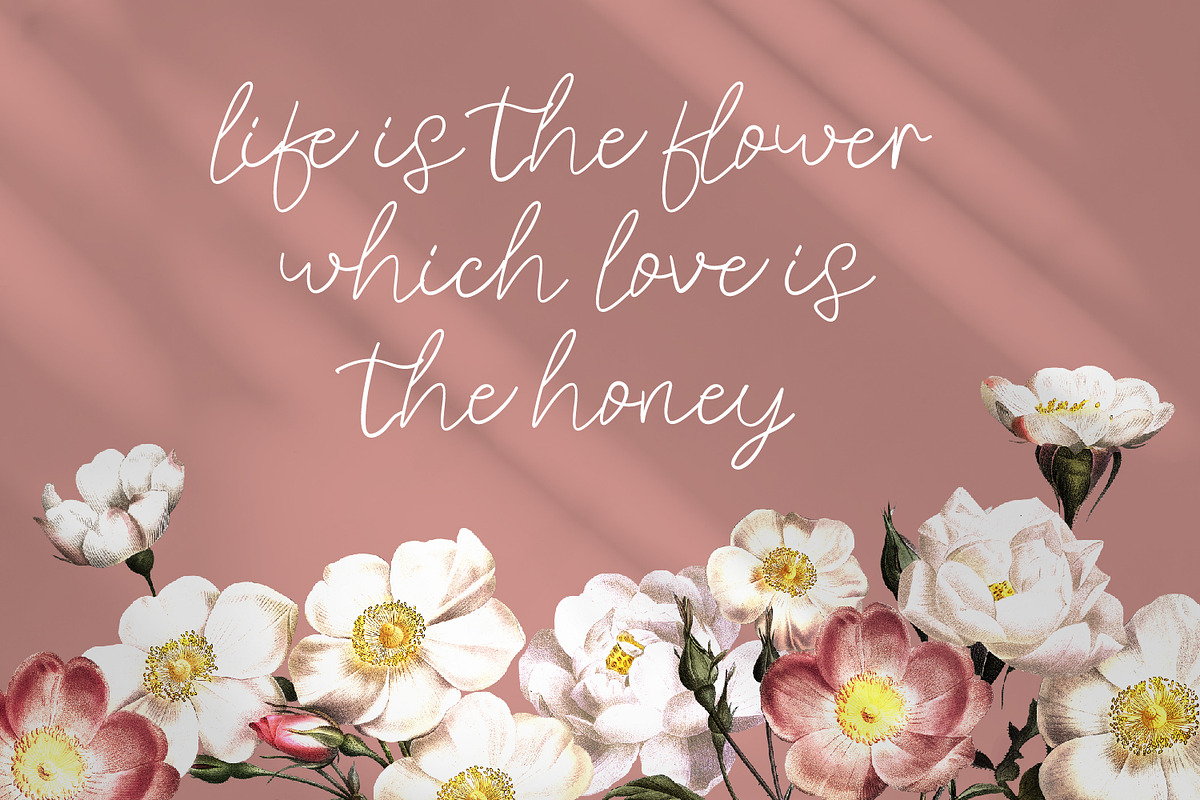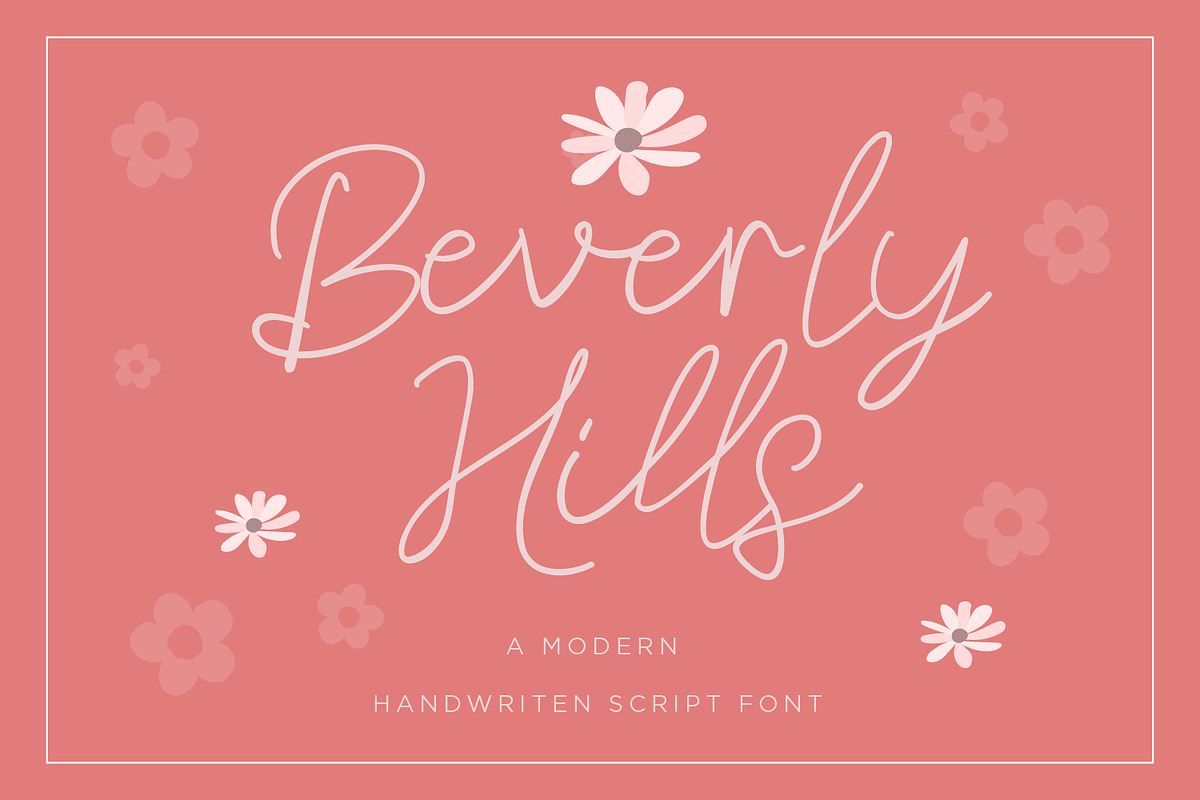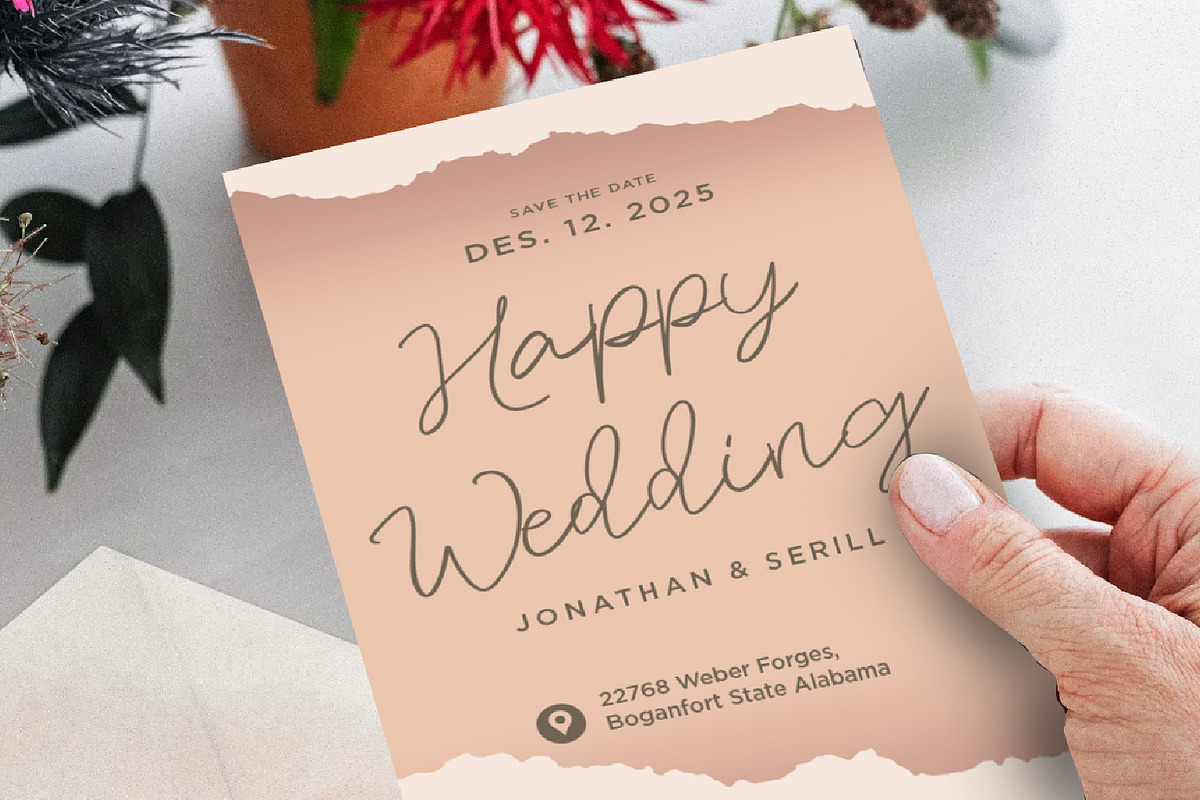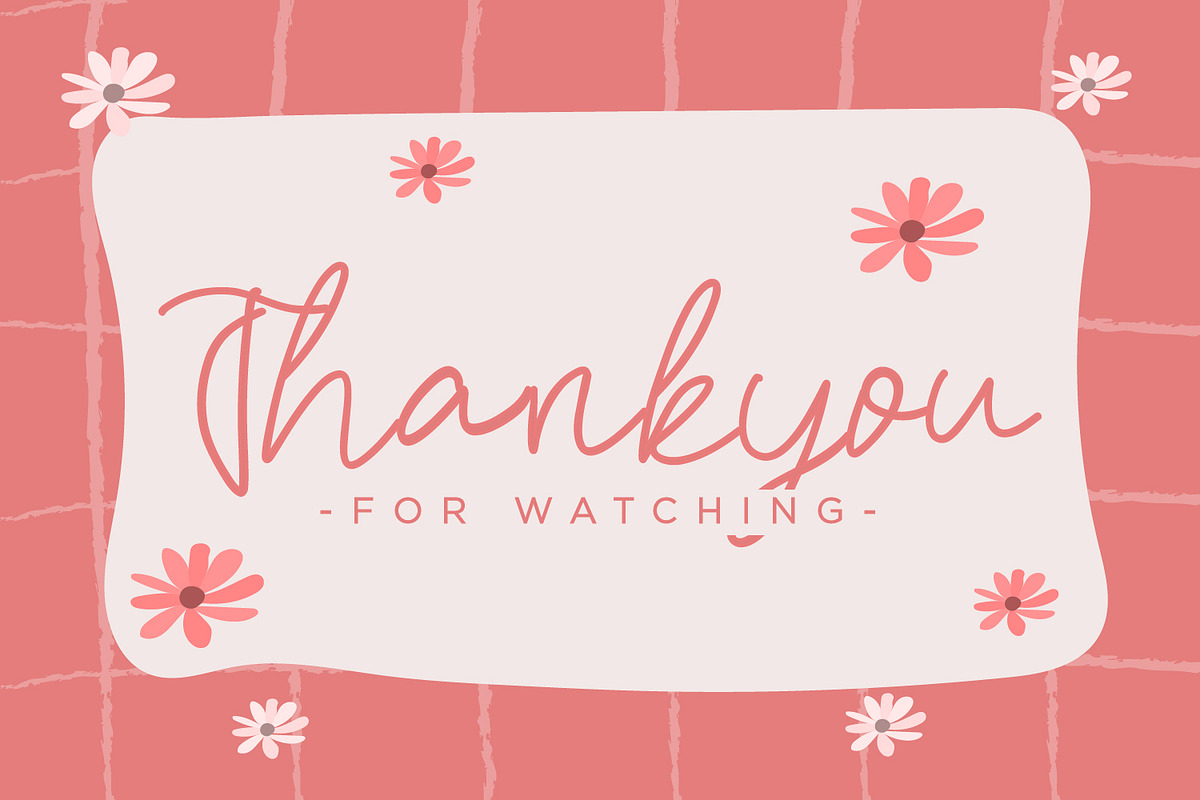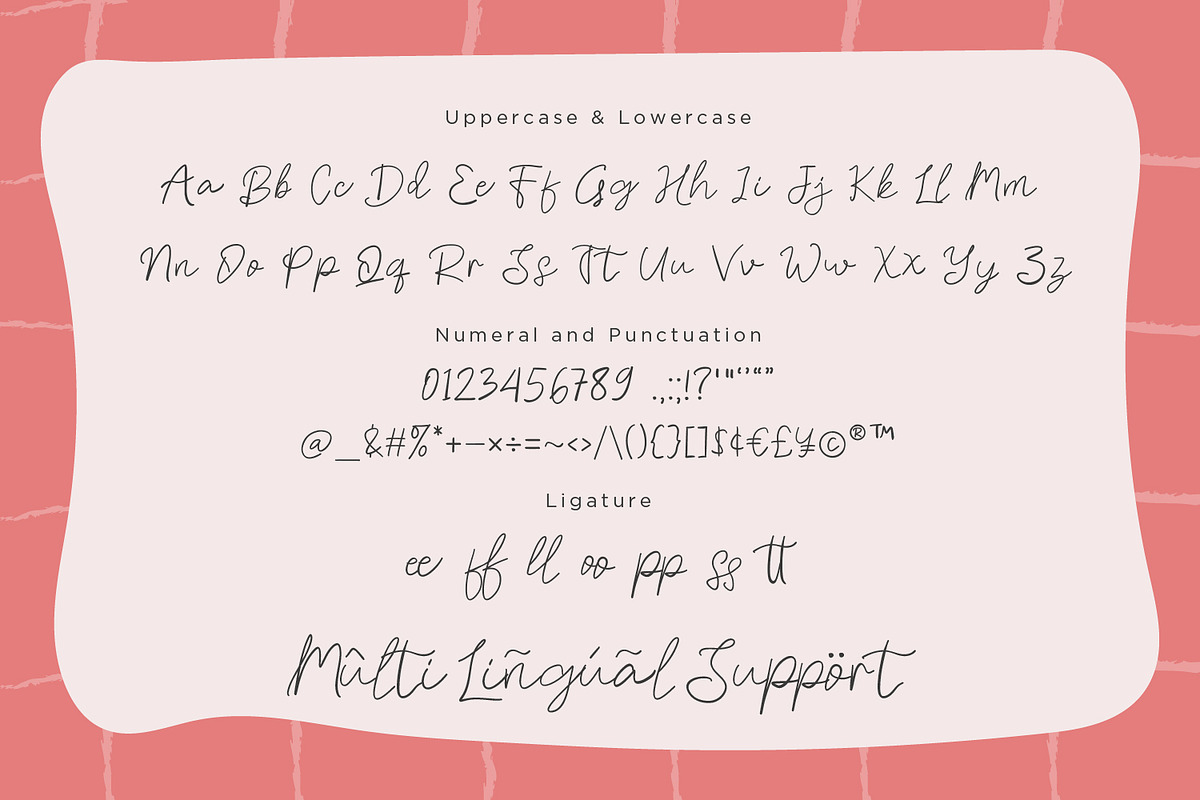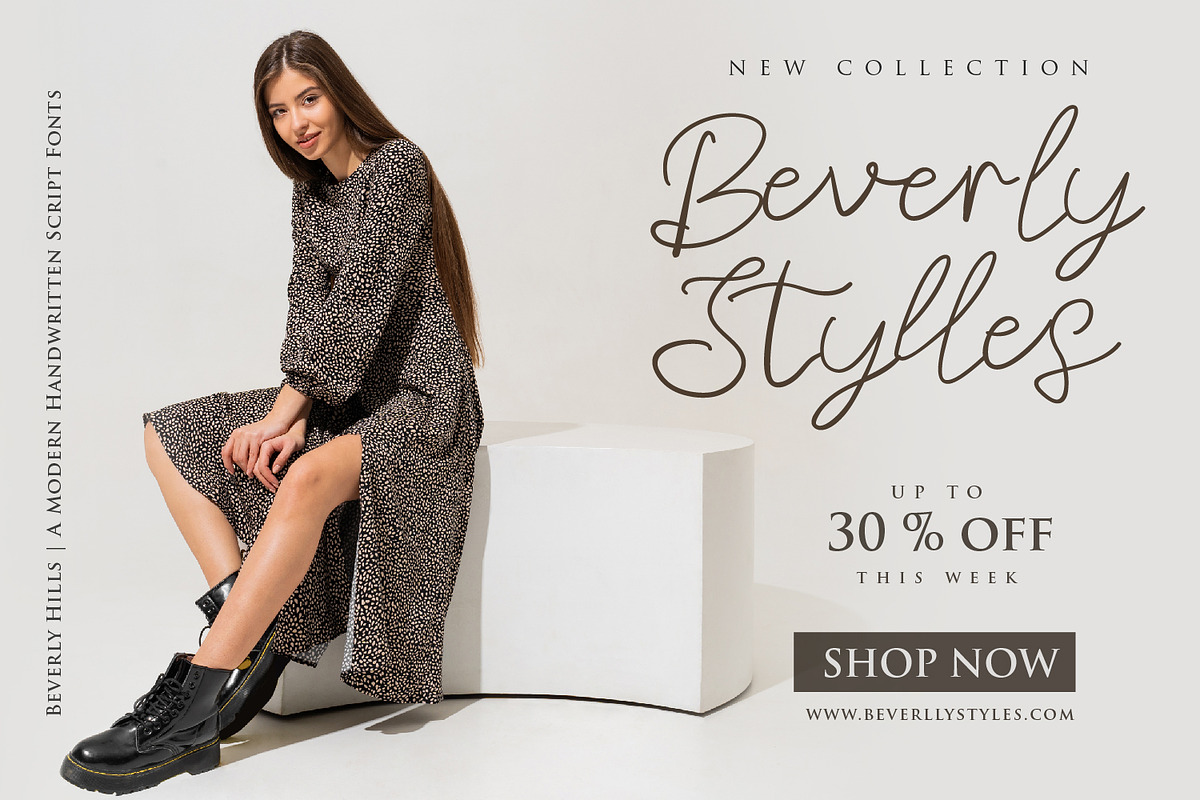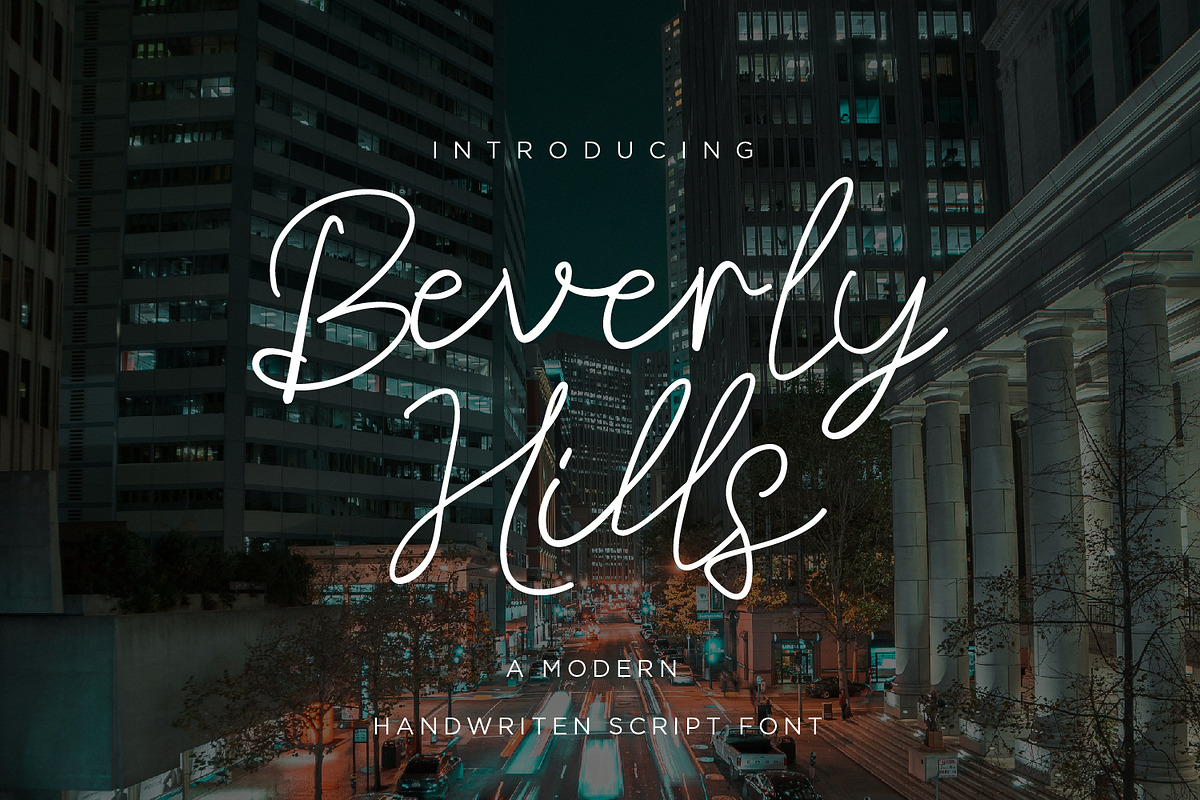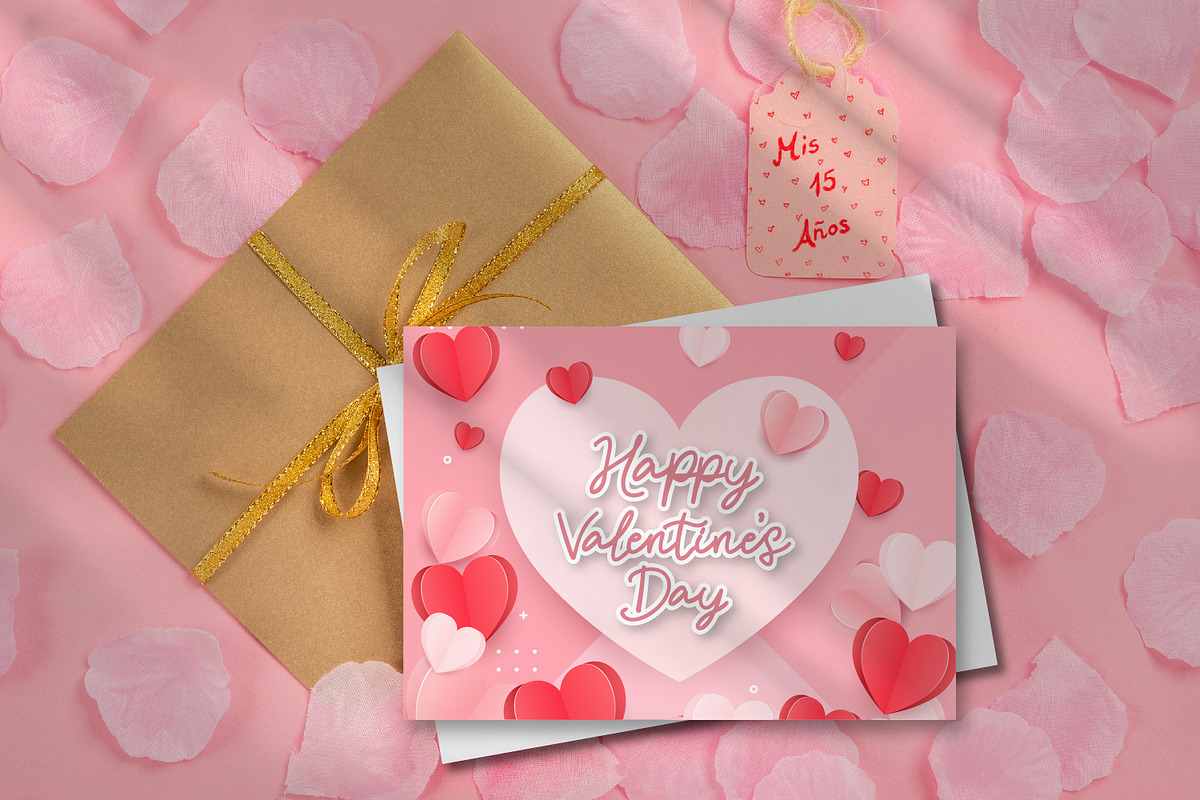
Beverly Hills - Handwriten Script fo
Beverly Hills - Handwriten Script fonts
Beverly Hills is a Handwriten script font, will be suitable for any projects such as logo’s, branding projects, homeware designs, product packaging, mugs, quotes, posters, shopping bags, t-shirts, book covers, name card, invitation cards, greeting cards, label, photography, watermark, special events, and all your other lovely projects that need beautiful handwriting taste.